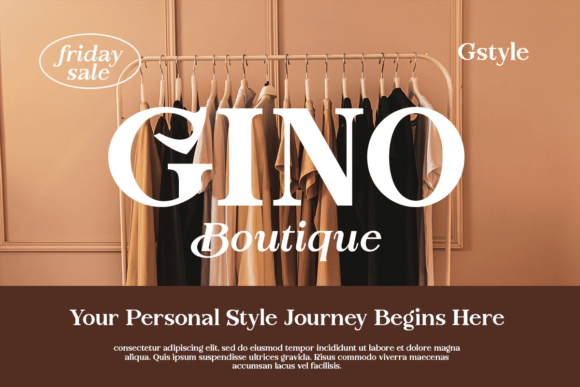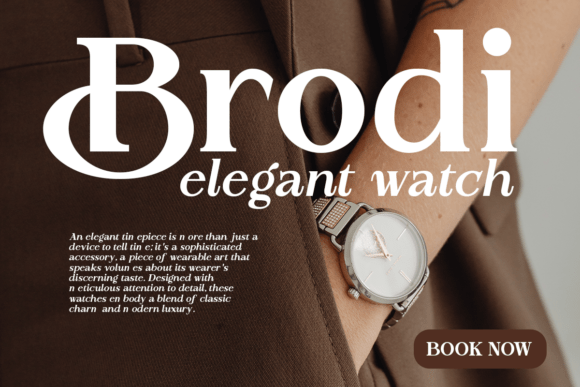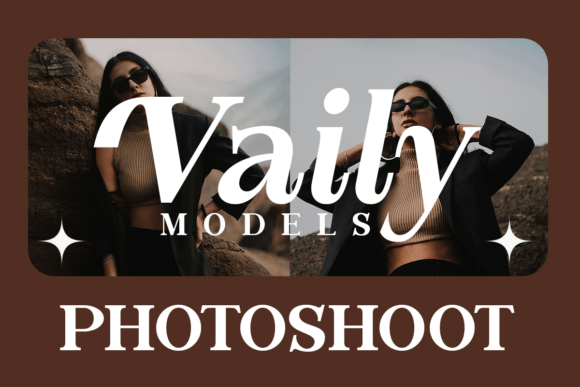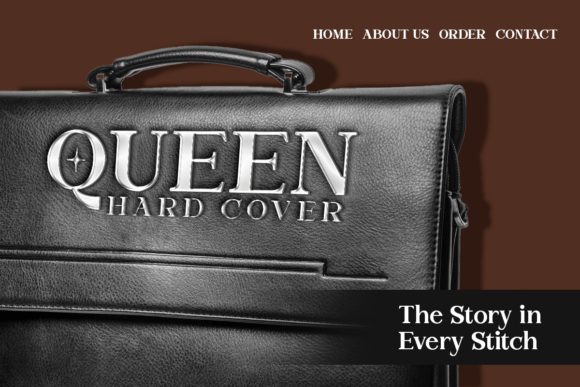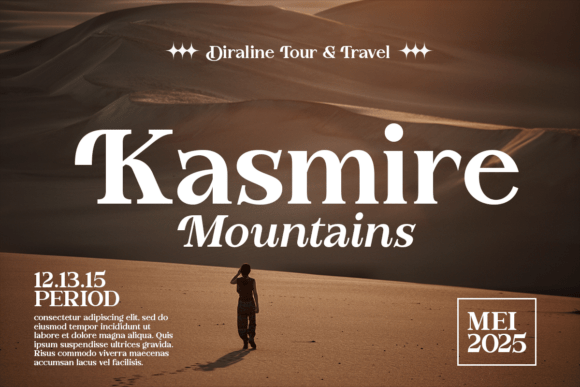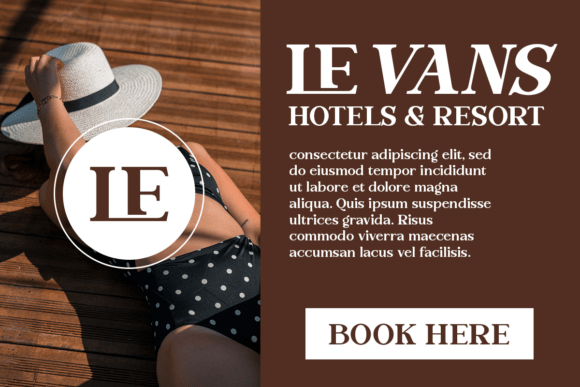
Introducing Diraline Font: Elevate Your Designs with Elegance and Sophistication
In the world of typography, a font can make or break the aesthetic of a design. For designers and crafters seeking to infuse their projects with a touch of luxury and refinement, Diraline Font emerges as a stellar choice. This modern serif font is meticulously crafted with elegance and sophistication in mind, making it an ideal selection for high-end branding, editorial design, and luxury packaging.
The Essence of Diraline Font
Diraline Font is characterized by its sharp serifs and balanced proportions, which collectively contribute to its contemporary appeal. Unlike traditional serif fonts that may seem outdated or overly classic, Diraline strikes a perfect balance between modernity and tradition. Its design ensures that it stands out in a crowd, offering a fresh yet timeless look that can elevate any design project.
Key Features of Diraline Font
- Sharp Serifs: The sharp serifs of Diraline add a level of sophistication and elegance, making it perfect for designs that require a high-end feel.
- Balanced Proportions: The font’s balanced design ensures that it remains legible and aesthetically pleasing, whether used for headings or body text.
- Luxurious Italic Version: One of the standout features of Diraline is its luxurious italic version. This addition provides designers with a versatile tool to add emphasis and create visual hierarchy in their designs.
Applications of Diraline Font
Given its elegant and refined nature, Diraline Font finds its application in various design projects, including:
- High-End Branding: For brands aiming to convey luxury, sophistication, and elegance, Diraline serves as an excellent choice for their logo and marketing materials.
- Editorial Design: In magazines, newspapers, and digital publications, Diraline can add a touch of class and professionalism to articles, features, and editorials.
- Luxury Packaging: For products that exude luxury and high quality, packaging designs featuring Diraline Font can significantly enhance the product’s perceived value.
Why Choose Diraline Font?
Choosing Diraline Font for your design projects comes with several advantages:
- Versatility: With its regular and italic versions, Diraline offers flexibility in design, allowing for a wider range of creative possibilities.
- Legibility: Despite its elegant and sophisticated look, Diraline maintains high legibility, making it suitable for both headings and body text.
- Timeless Appeal: The font’s design ensures that it won’t become outdated quickly, providing a long-term solution for branding and design needs.
Diraline Font stands out as a modern serif font that brings elegance, sophistication, and a touch of luxury to design projects. Its sharp serifs, balanced proportions, and the inclusion of a luxurious italic version make it a versatile and refined choice for designers and crafters. Whether you’re working on high-end branding, editorial design, or luxury packaging, Diraline Font offers the perfect blend of tradition and modernity to impart an aura of grandeur and class to every word.
Embrace the elegance of Diraline Font in your next design project and experience the difference it can make in elevating your designs to new heights of sophistication and luxury.